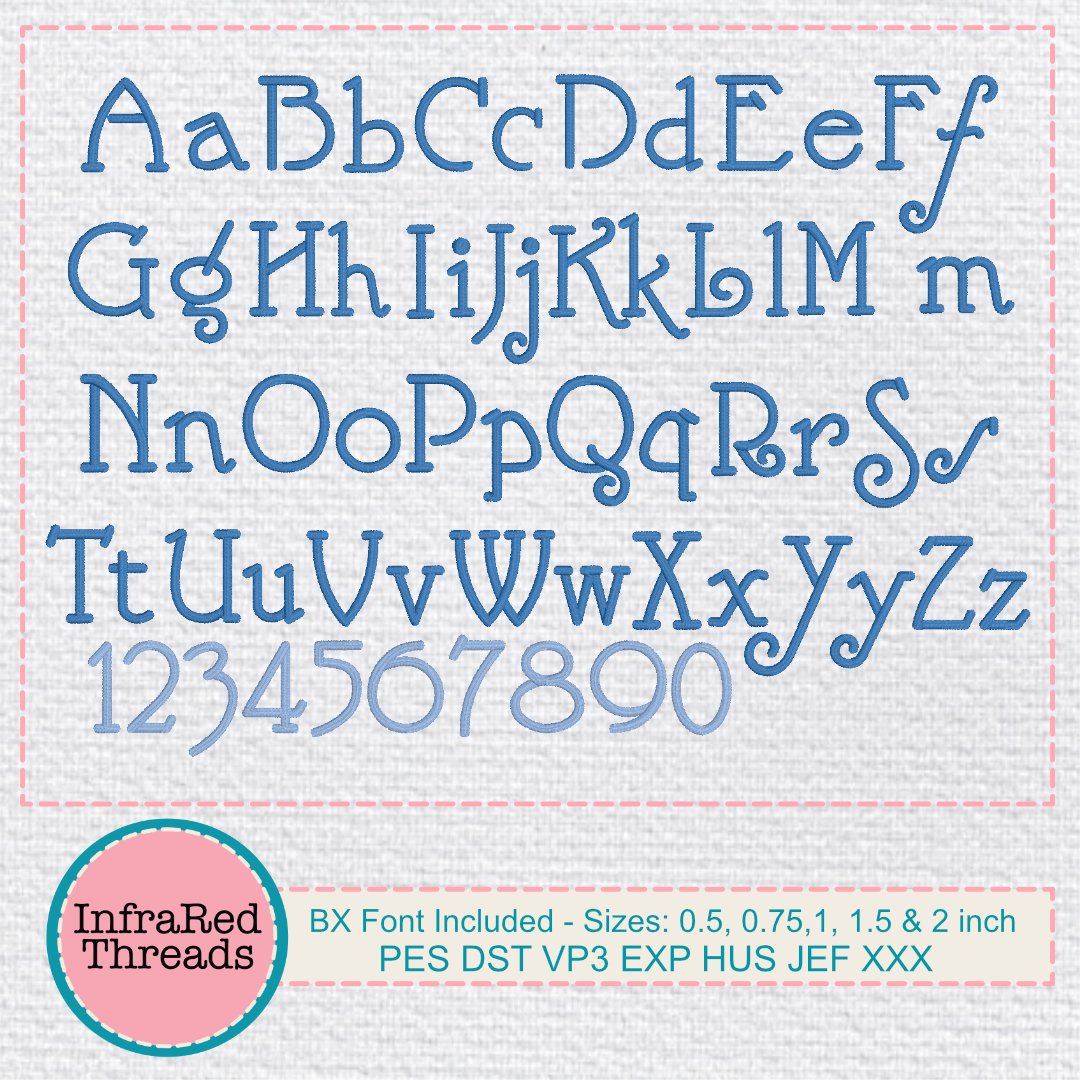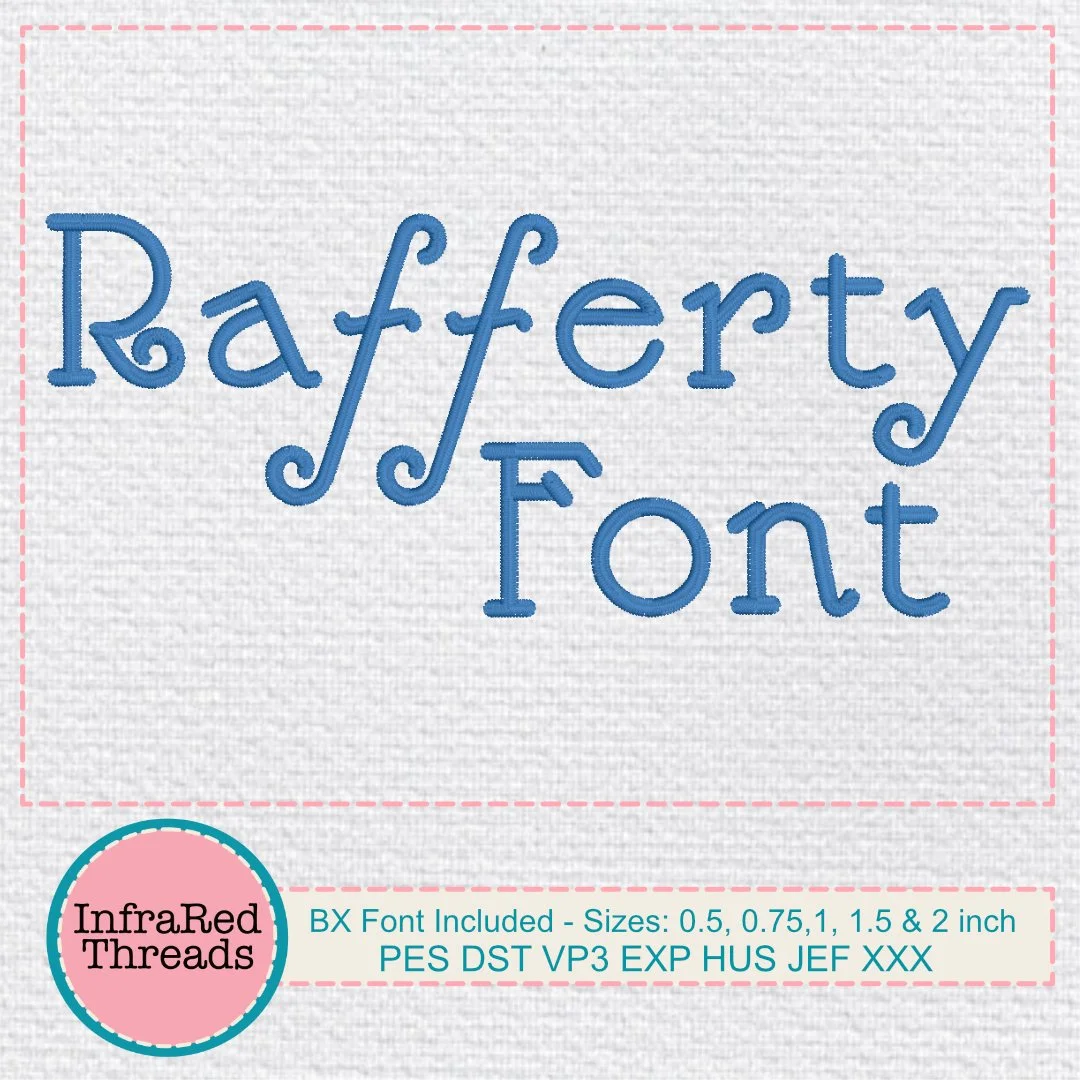
Rafferty Embroidery Font – Playful Curled Satin Stitch Alphabet in 5 Sizes
The Rafferty Font is a whimsical embroidery alphabet featuring distinctive curled terminals and a playful serif style. With its vintage charm and bold satin stitch finish, this font is perfect for children’s items, boutique labels, holiday projects, or anything needing a touch of flair. The wide range of sizes makes it versatile for both small tags and large decorative pieces. Includes uppercase and lowercase letters in five sizes, plus BX format for quick use in Embrilliance.